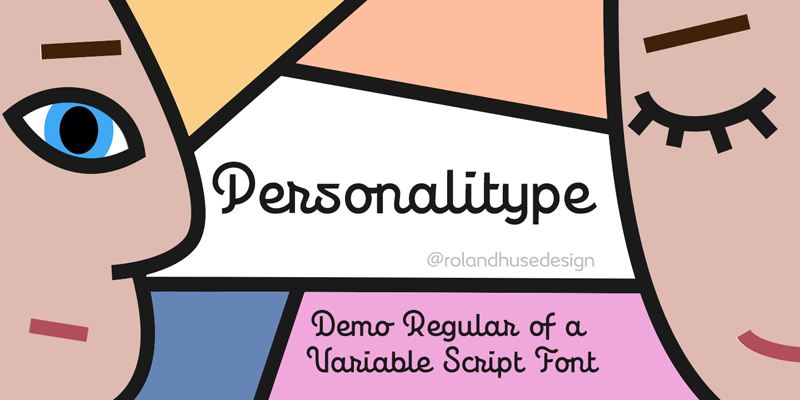
PERSONALITYPE is a weight variable upright script font. This is the DEMO version of the REGULAR instance of the font, with some contextual alternates and ligatures for smooth connections. Please make sure you have "Contextual Alternates", "Standard Ligatures" and "Terminal Forms" enabled while using this font. The full font is weight variable from Light to Extra Bold and contains all Western and Eastern European language accents and characters. Full version and commercial licensing is available at https://rolandhuse.com http://store.rolandhuse.com or you can email me at fonts@rolandhuse.com You may not sell these fonts or claim them as your own. edit or rename these fonts. redistribute these fonts. Find more of my works on instagram @rolandhusedesign Thank you and hope you like this font! Have a great day and good luck with your work, Roland |